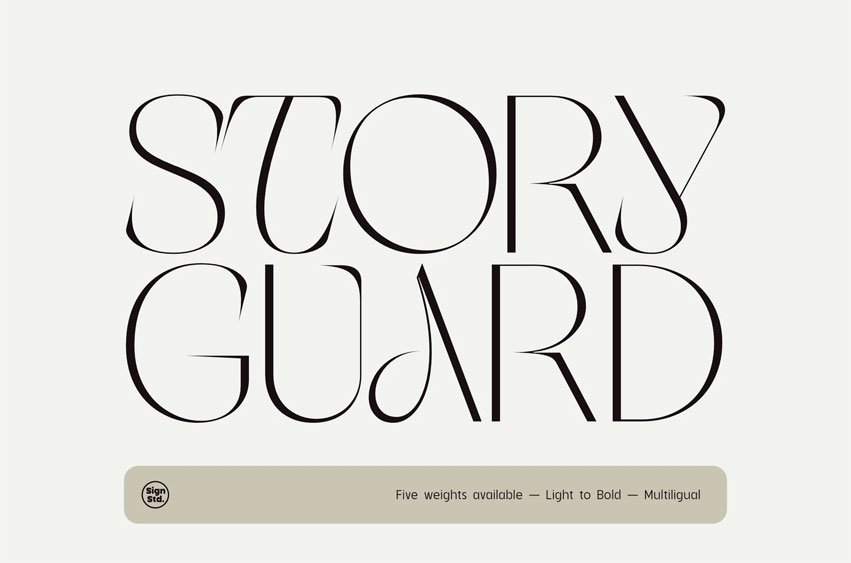
Story Guard Font
Story Guard Font is a contemporary decorative sans crafted for designers who appreciate both precision and artistry. Defined by its clean geometry and subtly ornamental details, it blends modern clarity with expressive character — ideal for editorial headlines, refined branding, and distinctive typographic compositions. Each weight, from Light to Bold, carries balanced rhythm and sculpted form, ensuring visual harmony across various design contexts.
With a restrained contrast and carefully shaped terminals, Story Guard captures sophistication and warmth in equal measure. Its decorative essence gives every letter a crafted identity — modern yet timeless, bold yet graceful — making it a striking choice for creative and narrative-driven design projects.